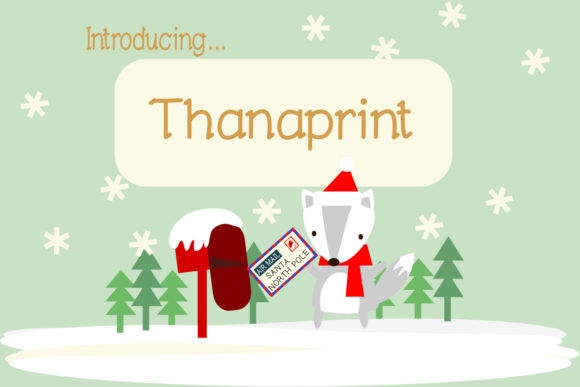
Thanaprint Font
Thanaprint Font is perfect for vintage printing company branding, letterpress workshop materials, traditional publishing house communications, artisanal stationery designs, heritage print shop signage, classical typography education, handcrafted book projects, and authentic printing culture campaigns.
What makes Thanaprint Font exciting is its authentically typographic character that captures the timeless craft and mechanical precision of traditional letterpress printing through carefully engineered letterforms that seem pressed directly from movable type. The font features classic printing proportions with authentic details that evoke the satisfying weight of metal type and the rich texture of hand-fed paper through vintage printing presses. Its print-authentic aesthetic and typographic heritage make it perfect for brands that want to communicate craftsmanship tradition, printing excellence, and the enduring appeal of tactile communication while creating memorable experiences that honor the foundational art of typography and the essential role of printing in preserving human knowledge.
Thanaprint Font family includes various printing weights such as Light, Regular, Medium, and Bold variations, often featuring letterpress-inspired alternates and typographic decorative elements. The family may include printing symbols, press ornaments, and traditional ligatures that enhance the font's authentic aesthetic, providing designers with comprehensive options for creating genuine typographic compositions that celebrate printing heritage and traditional typography.